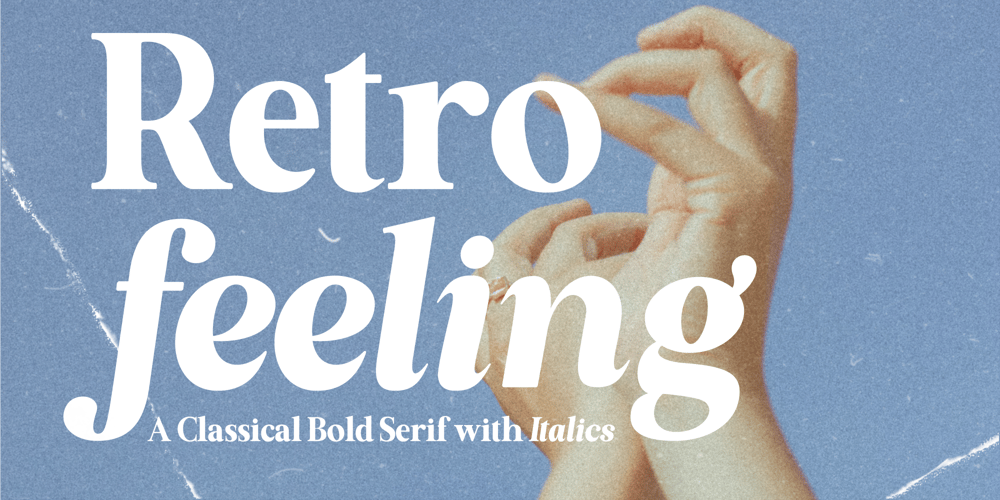
Retro Feeling
Retro Feeling font
Retro Feeling Font Family was designed by Zak M and published by Prestige Artsy Studio. Retro Feeling contains 2 styles and family package options. Retro Feeling is a bold and beautiful retro font that will take you back in time. It features a unique italic font that adds a touch of elegance to any design project. Perfect for vintage-themed designs.Retro Feeling will give your project a distinct and timeless look. Its versatility and elegance make it perfect for various design uses, from logos, posters, and display headlines to packaging and branding materials. Bring the retro vibe to your design project with Retro Feeling!